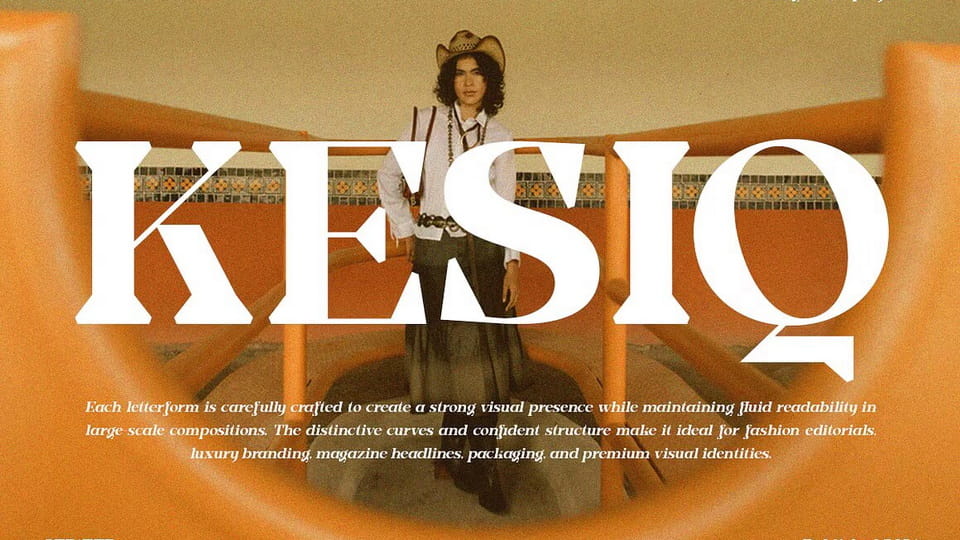
Download Kesiq font, a modern serif display typeface that blends sculptural elegance with contemporary clarity designed with high contrast and distinctive curves.